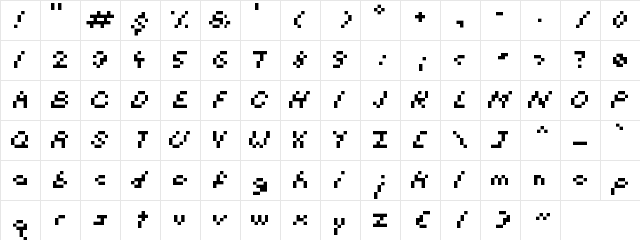
Pixel DPF Regular
Design Context for Pixel DPF Typeface
Pixel DPF celebrates the constraints of early digital type, turning pixel geometry into a distinctive and immediately recognisable style.
A natural choice for retro game titles, chiptune music branding, 8-bit UI, and digital nostalgia projects.
Pro Tip: Pair Pixel DPF with flat colour palettes and simple geometric UI elements to reinforce its digital aesthetic.